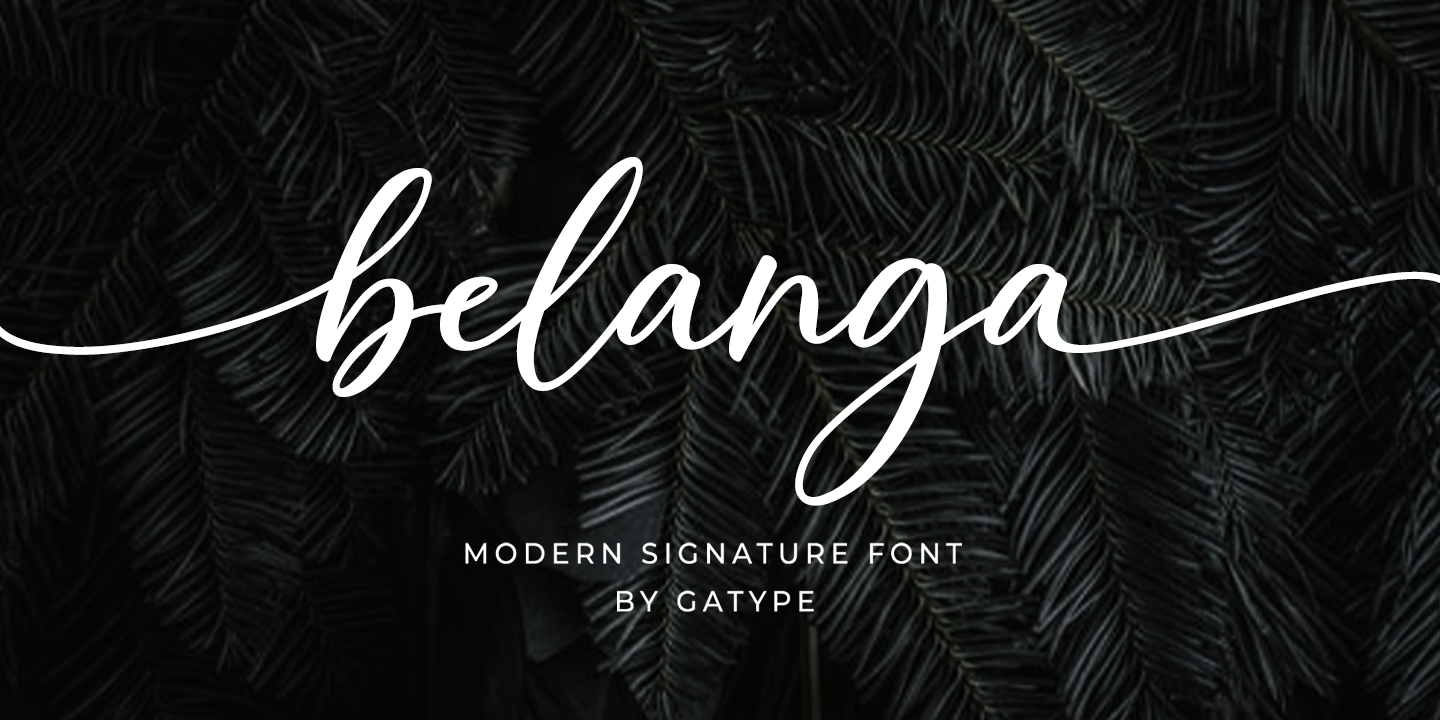
Belanga
Belanga is a modern calligraphy font family published by Gatype.
Belanga is a smooth, elegant, and flowing handwritten font. It has a beautifully balanced character and goes well with many designs. Add it confidently to your projects, and you will love the results. This font is PUA encoded which means you can access all of the glyphs and swashes with ease!